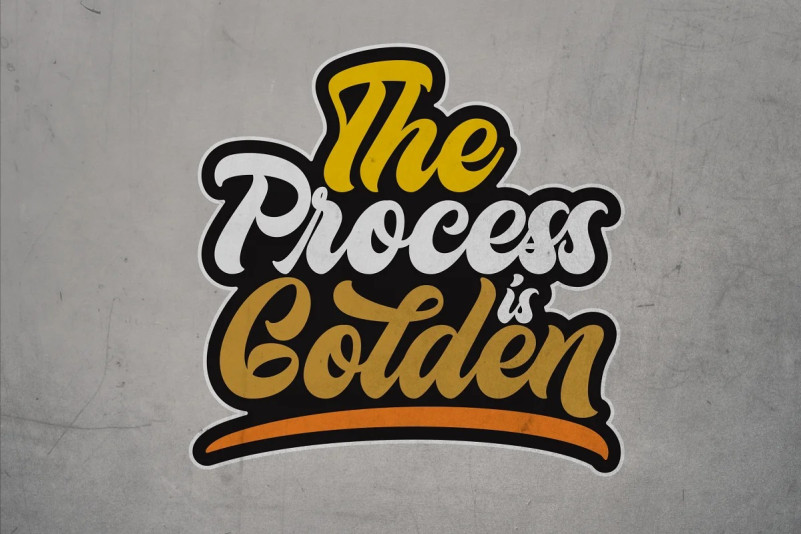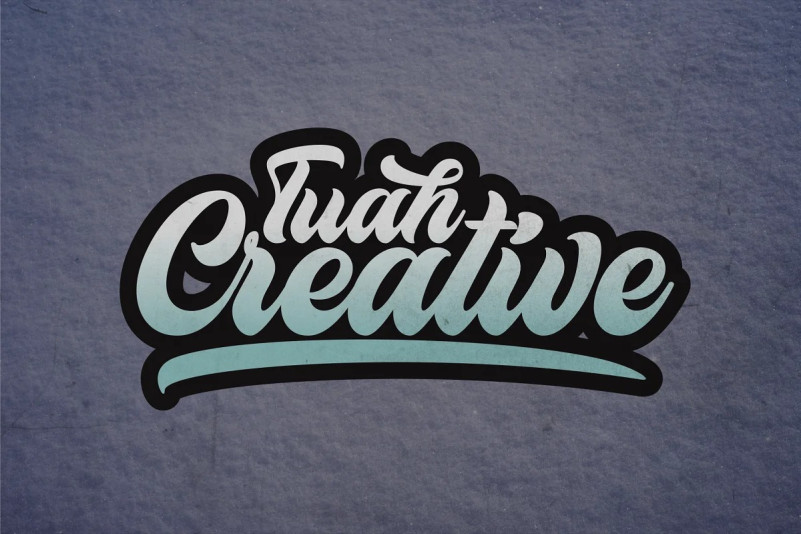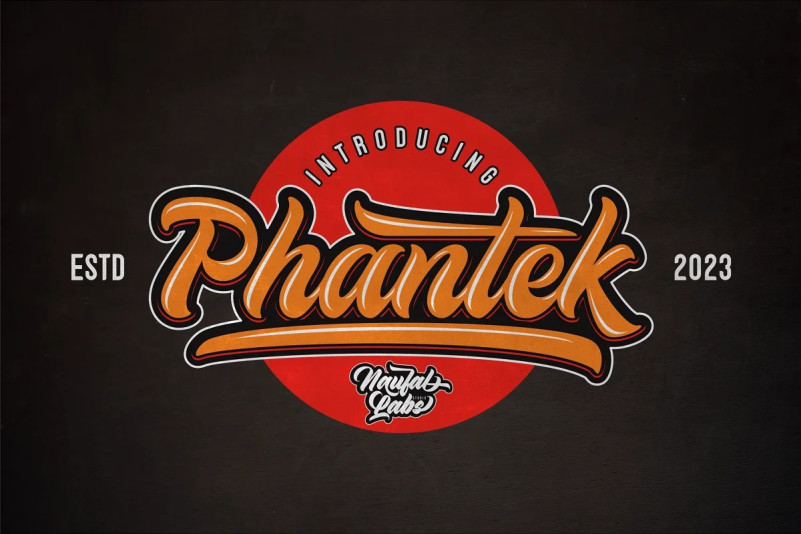
Phantek Font
Introducing Phantek Script Font is a strong bold script that comes from hand scratches to get natural writing. With the main style of the hand-lettering script, it will be very interesting if it is added with a variety of Alternates and also Stylistic Sets that are very suitable.
This typeface works really well for logos, labels, posters, shirt designs, wisdom quotes, bulletins, typography, and many other media, especially with retro or vintage look.